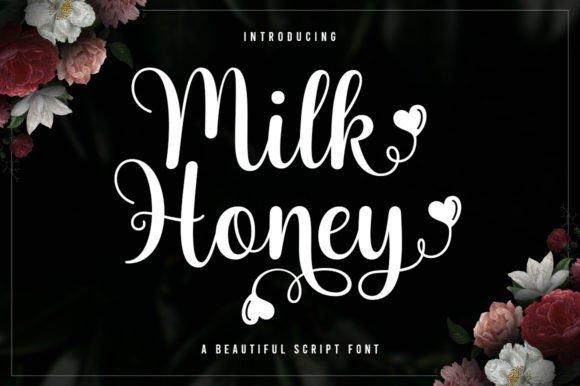
Unleash the timeless charm of Milk Honey, an exquisite script font crafted to evoke a sense of warmth and elegance into your designs. Elevate your branding materials with its flowing curves and delicate strokes, leaving a lasting impression on your audience.
Journey into a world of versatility, where Milk Honey seamlessly adapts to your creative visions. Whether you're crafting wedding invitations, designing captivating logos, or personalizing stationery, this font possesses the versatility to elevate any project.
Express your individuality through Milk Honey's enchanting letters, each meticulously designed to convey a message of sophistication and grace. Its refined aesthetic adds a touch of allure to titles, signatures, and correspondence, ensuring that your words leave a lasting mark.
Immerse yourself in a symphony of style with Milk Honey, a font that harmonizes perfectly with a myriad of creative endeavors. Its captivating form enhances letterheads, nameplates, and labels, adding a touch of timeless charm to your creations.
Transport your readers to an era of elegance with Milk Honey's enchanting grace. Its delicate lines weave a tapestry of beauty across newsletters, posters, and badges, leaving audiences captivated by your message.
Discover the endless possibilities of Milk Honey, a font that unlocks your creative potential. With its ability to transform ordinary designs into masterpieces, Milk Honey is the ultimate choice for those seeking to make a statement.